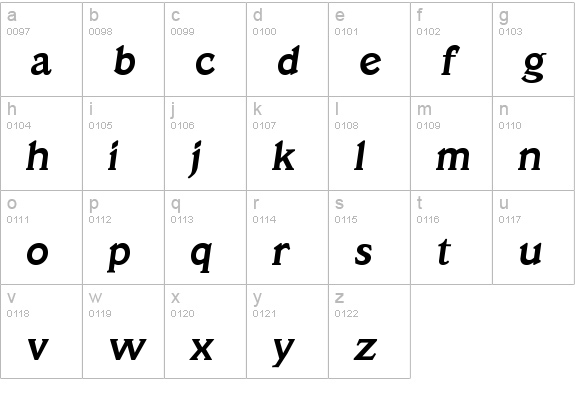
Veracruz-DemiBoldIta is a captivating and modern font that combines boldness with elegance. Its unique and sophisticated design makes it perfect for a wide range of creative projects, from logos and branding materials to headlines and social media graphics. This font stands out with its distinctive italicized style, adding an extra touch of flair and personality to any text. With its strong and confident letterforms, Veracruz-DemiBoldIta commands attention and creates a lasting impression. One of the most appealing aspects of Veracruz-DemiBoldIta is that it is freely available to download at FontsMarket.com. This means that designers, creatives, and typographers can easily access and utilize this stunning font without any limitations. Whether you're a professional designer or a hobbyist, Veracruz-DemiBoldIta allows you to bring your vision to life with ease. The versatility of Veracruz-DemiBoldIta is another reason why it is highly sought after. It seamlessly adapts to various design styles and contexts, making it suitable for both digital and print media. From sleek and modern designs to vintage-inspired layouts, this font effortlessly enhances any project it is used in. With its generous x-height and thoughtful spacing, Veracruz-DemiBoldIta ensures optimal legibility, even at smaller sizes. This makes it a practical choice for body text as well as headlines, allowing for a cohesive and harmonious design throughout. In conclusion, Veracruz-DemiBoldIta is a stunning and versatile font that combines boldness and elegance. Its italicized style adds an extra touch of sophistication, while its freely available download at FontsMarket.com makes it accessible to all. Whether you're working on a professional project or simply looking to elevate your personal designs, Veracruz-DemiBoldIta is sure to leave a lasting impression.